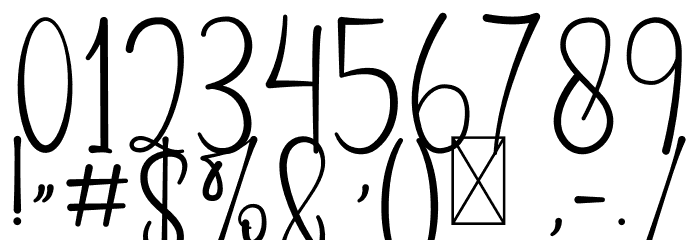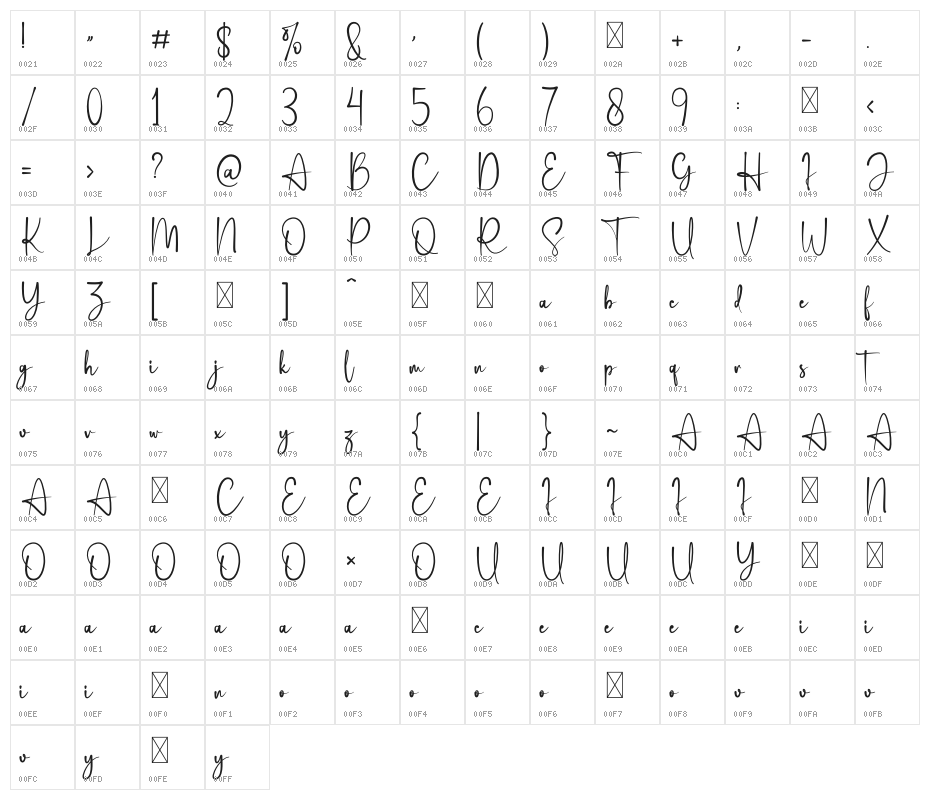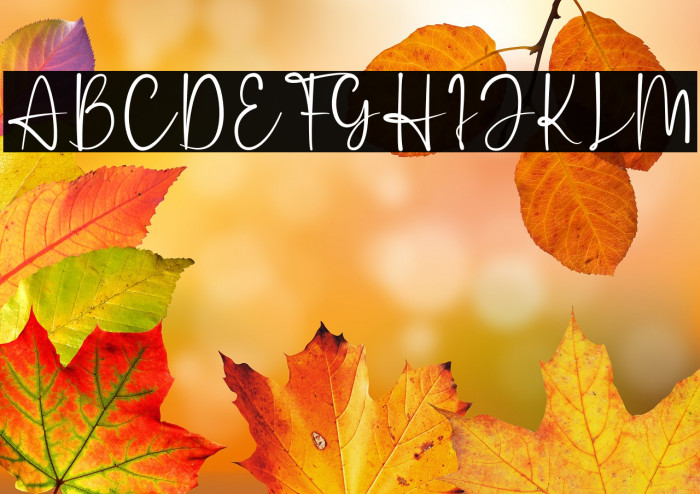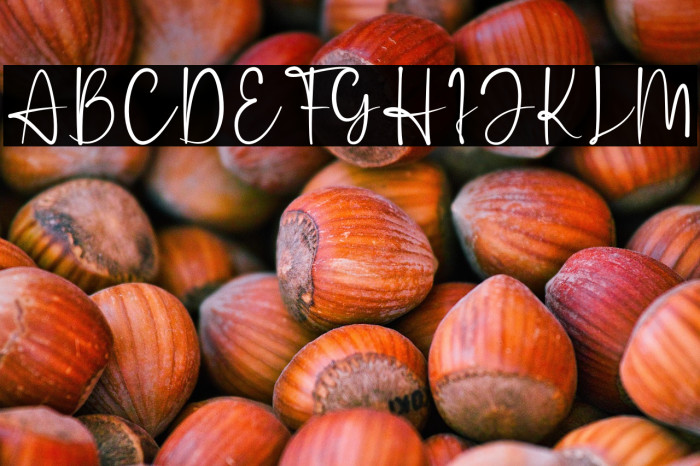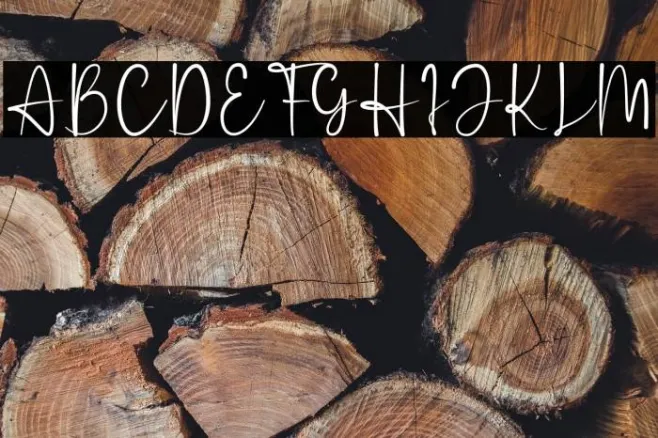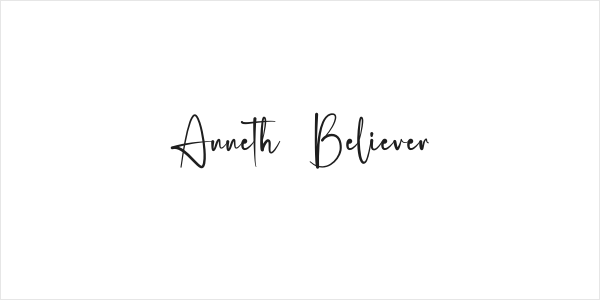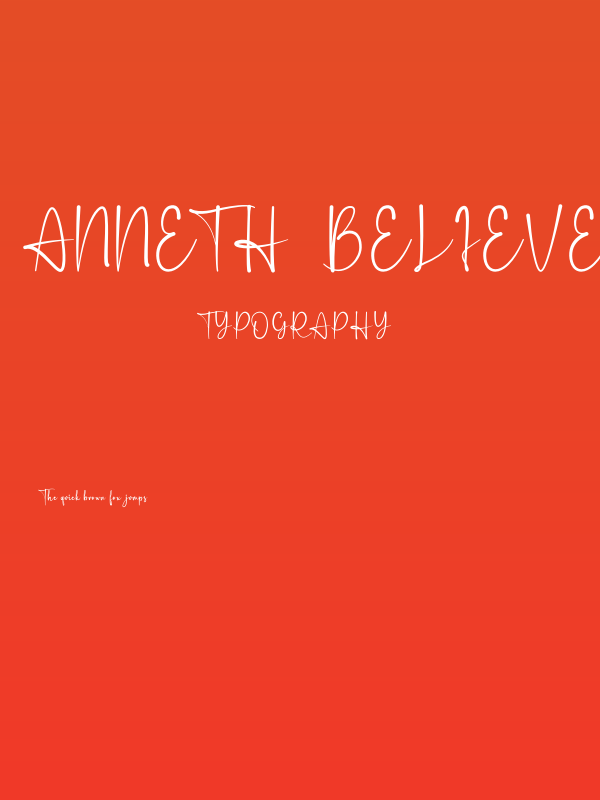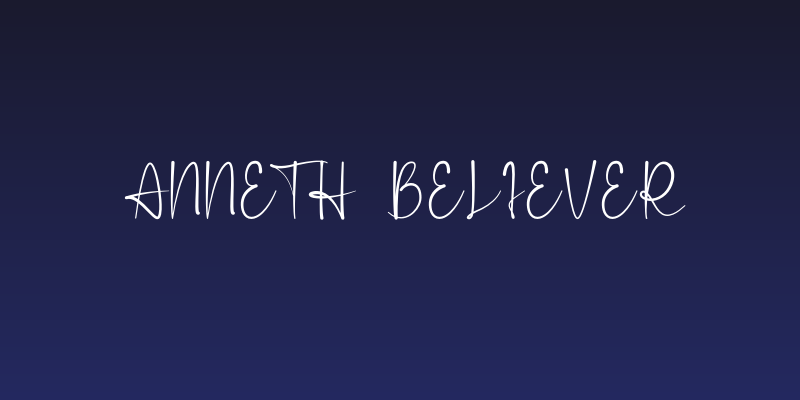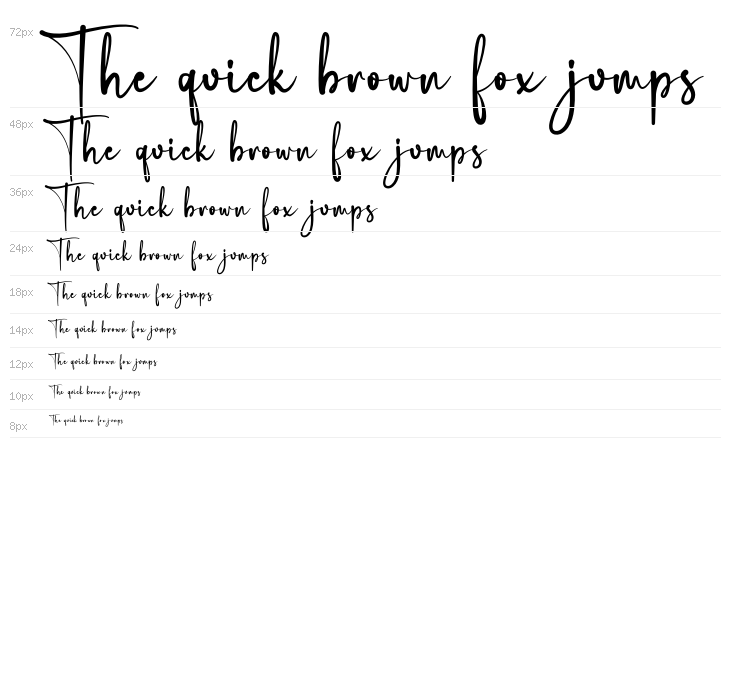
Anneth Believer Font
Anneth Believer Description
This font features a whimsical and playful handwritten style, characterized by its flowing and interconnected letterforms. The uppercase letters exhibit a unique blend of curves and sharp angles, giving them a distinctive and artistic appearance. The lowercase letters maintain a consistent fluidity, enhancing the font's overall elegance and charm. Numbers and special characters are designed with the same playful aesthetic, ensuring a cohesive look across all text. This font's artistic flair makes it ideal for creative and expressive projects.
| Proposed Projects | Ideal for greeting cards, invitations, personal branding, and creative projects that require a touch of elegance and playfulness. |